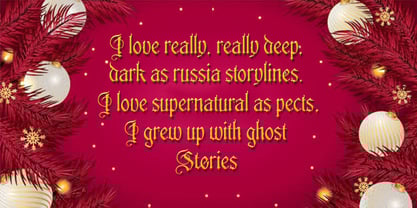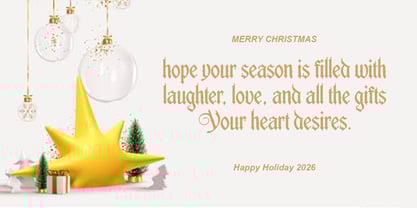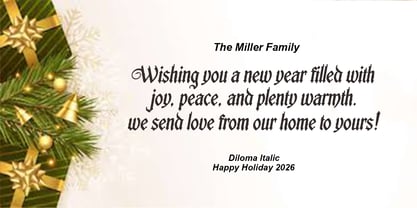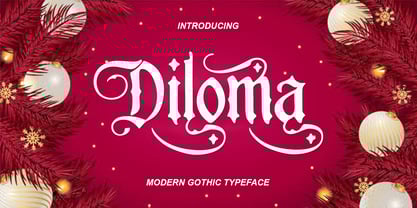
Diloma
The Diloma Font Family was designed by Muammar and published by Scoothtype. Diloma contains 4 styles and family package options.
Introducing Diloma! A modern gothic typeface that’s perfect for creating unique layouts and logo designs. Download Diloma now and go get creative! Diloma is a bold Blackletter font with strong Old English roots, reimagined through the lens of brutalist design. Merging the traditional elegance of calligraphy with the stark, raw aesthetics of brutalism, this font brings a unique fusion of history and modernity. Inspired by the sharp, precise strokes of flat-pen calligraphy, each character is crafted with rigid, angular forms that evoke the structured, geometric feel of brutalism while maintaining the intricate detail and ornate beauty of Old English typography. The result is a typeface that’s both commanding and elegant, perfect for bold branding, editorial pieces, and statement-making designs. Ideal for those who want to combine the weight of tradition with a contemporary edge, Diloma adds a touch of grandeur and power to any project.